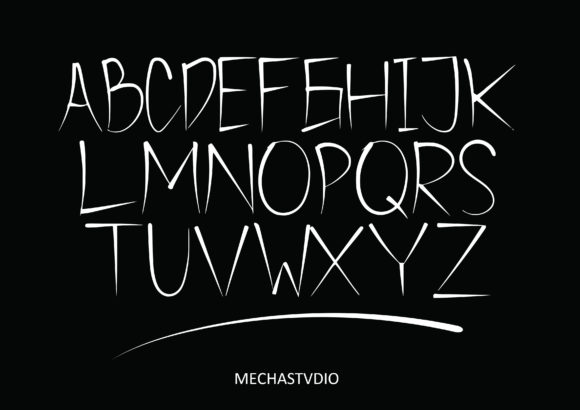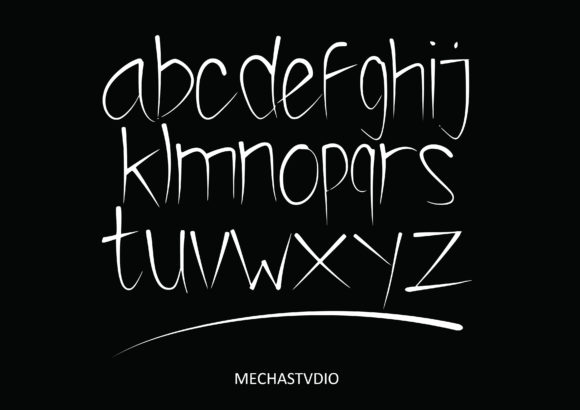
About Curved Chopstick Font
Curved Chopstick is a contemporary and stylish script font that embodies a clean, thin, and smooth aesthetic. With its sleek and modern design, this font is sure to make a striking impact when incorporated into various design projects.
The clean and elegant strokes of Curved Chopstick lend themselves well to a wide range of applications. Whether you’re working on branding, logos, packaging, invitations, posters, or any other design endeavor, this font’s distinct style can elevate your creations and give them a fresh and trendy look.
The thin and smooth vibe of Curved Chopstick adds a touch of sophistication to your designs. Its effortlessly flowing characters exude a sense of elegance and refinement, making it particularly well-suited for projects that require a modern and sleek appearance.
Curved Chopstick’s versatility shines through in its ability to adapt to different design contexts. For branding and logo design, it can convey a sense of modernity and professionalism, helping to create a memorable and impactful brand identity.
In digital media and social media graphics, Curved Chopstick’s sleek and contemporary style can capture the attention of your audience and enhance the visual appeal of your posts. Its clean lines and smooth curves create a harmonious visual experience that resonates with viewers.
When used in print materials such as packaging or invitations, Curved Chopstick adds a touch of elegance and refinement. Its clean and thin strokes create a sense of delicacy that can elevate the overall aesthetic of your design.
Overall, Curved Chopstick is a modern script font that brings a clean, thin, and smooth vibe to your design projects. Its versatility, combined with its sleek aesthetic, makes it a valuable asset for creating visually appealing and impactful designs that leave a lasting impression.